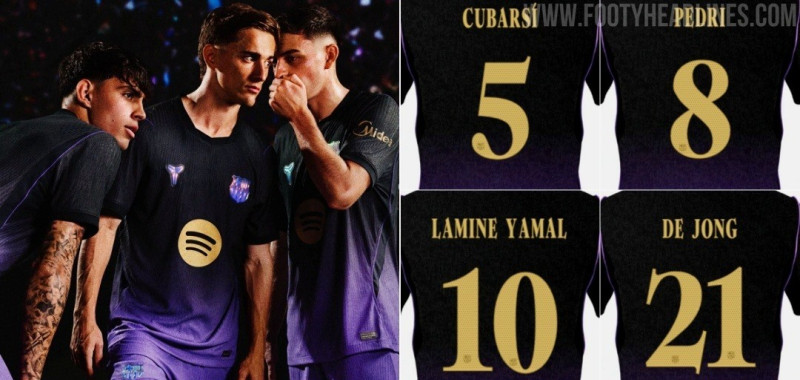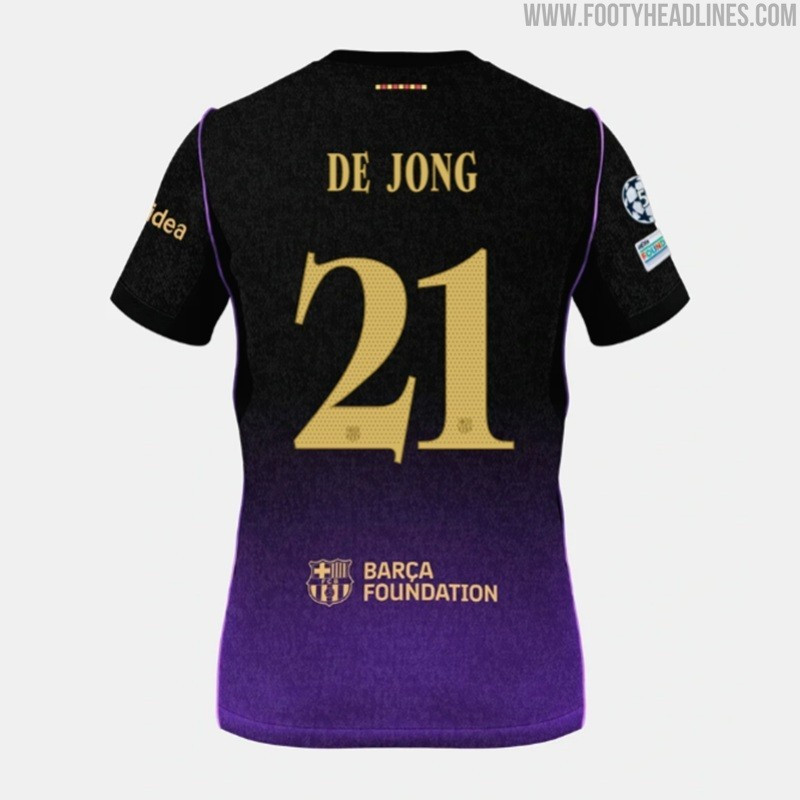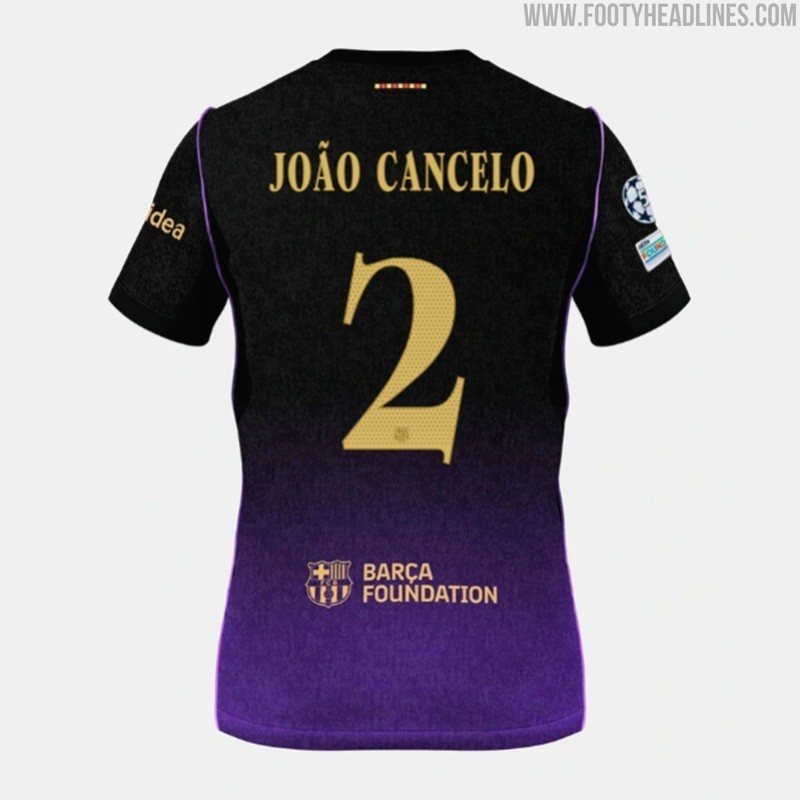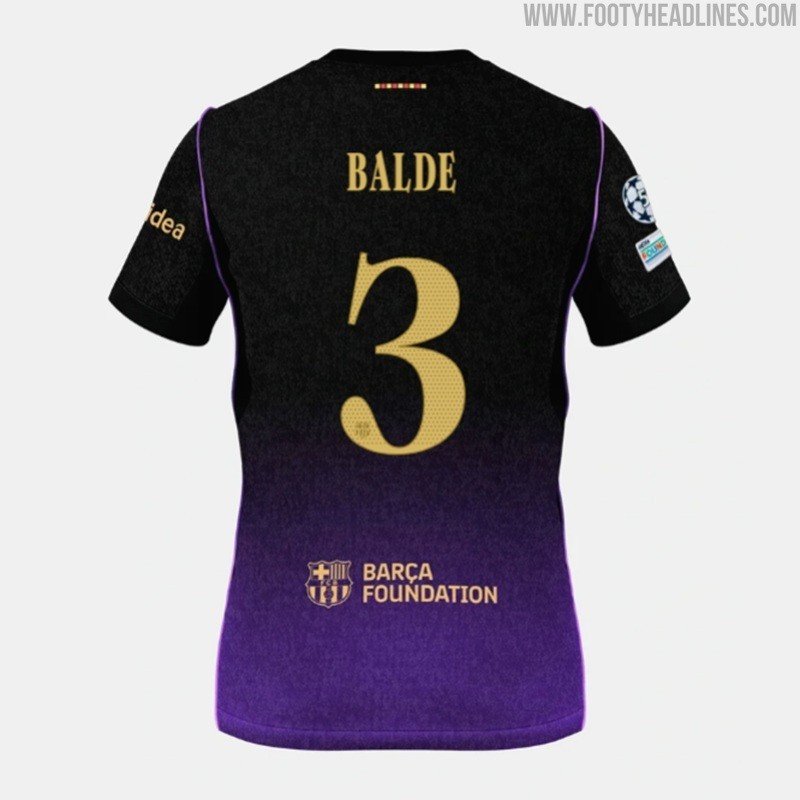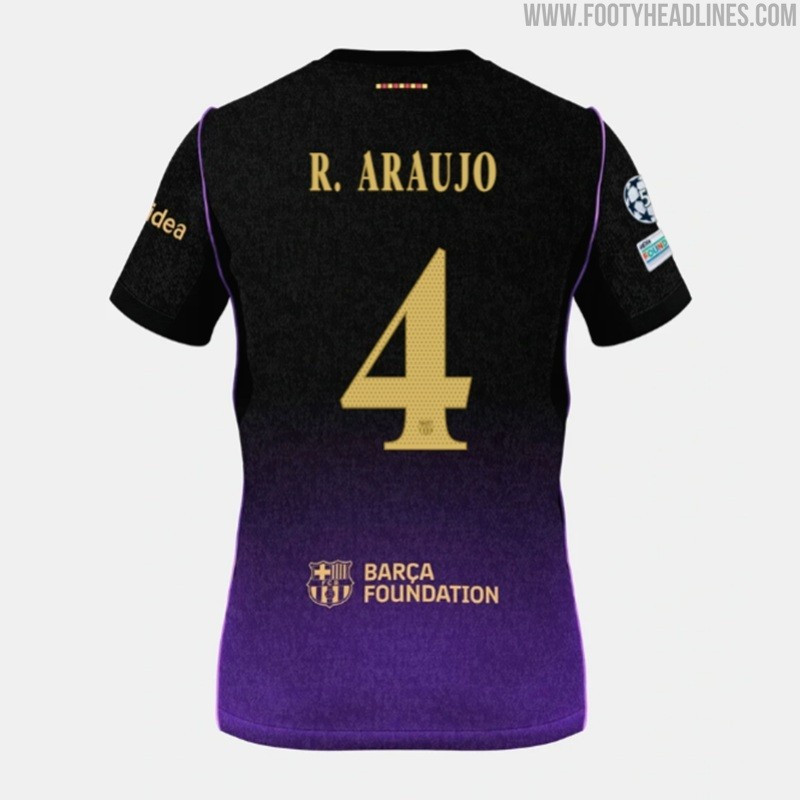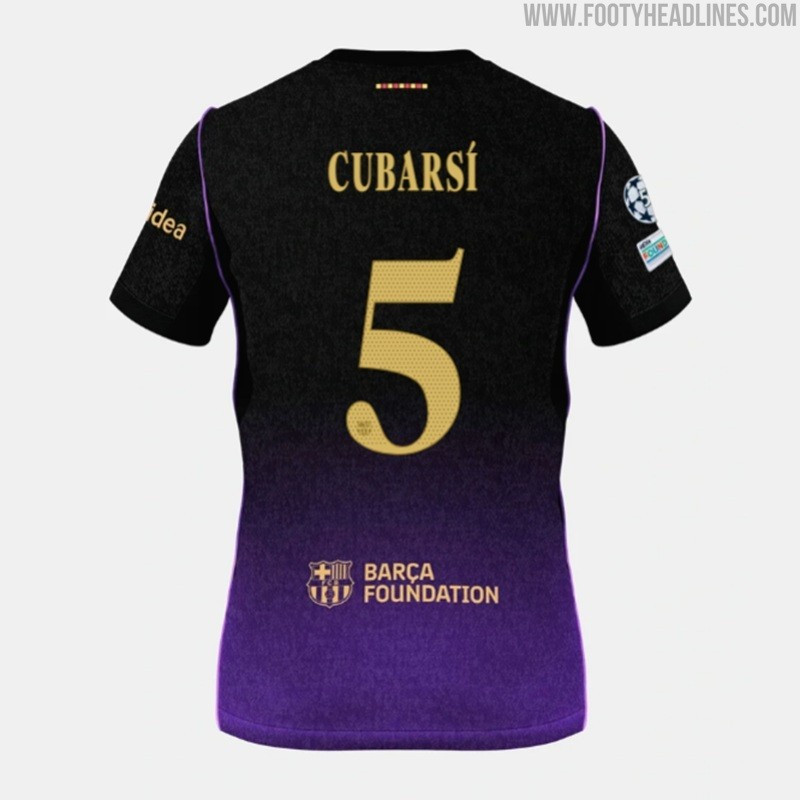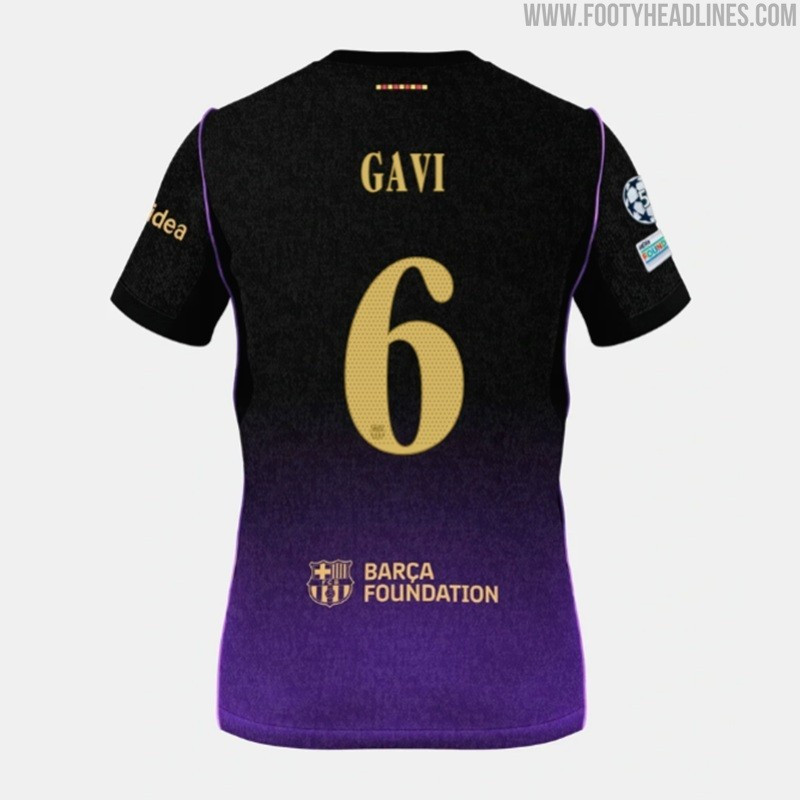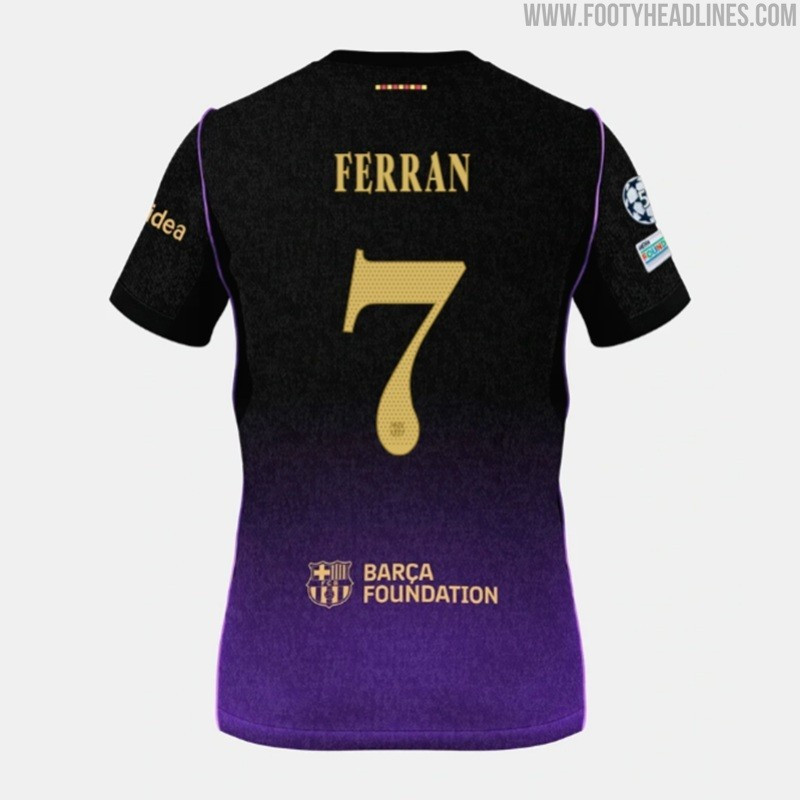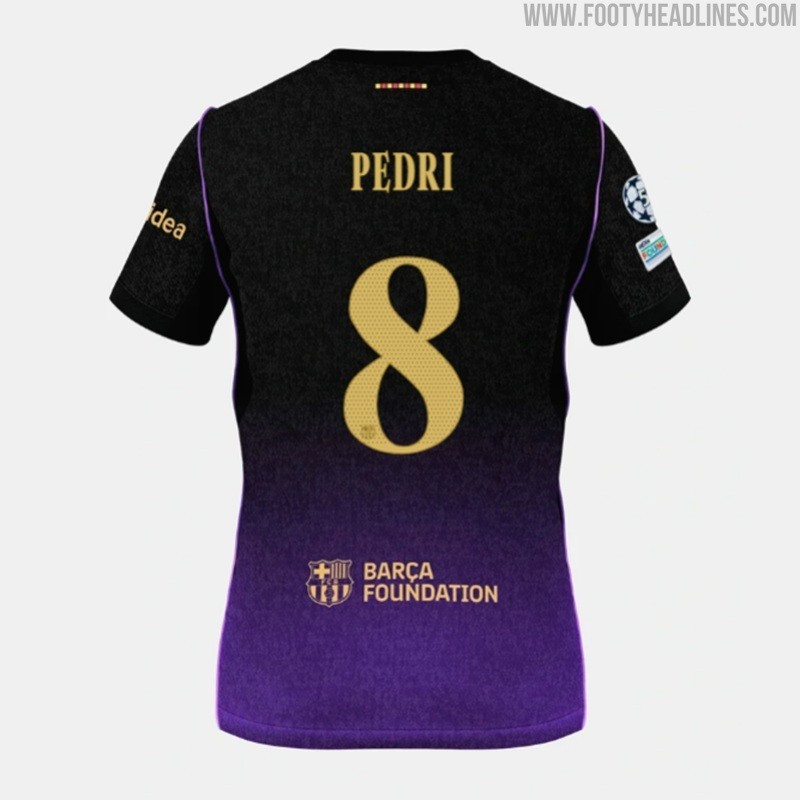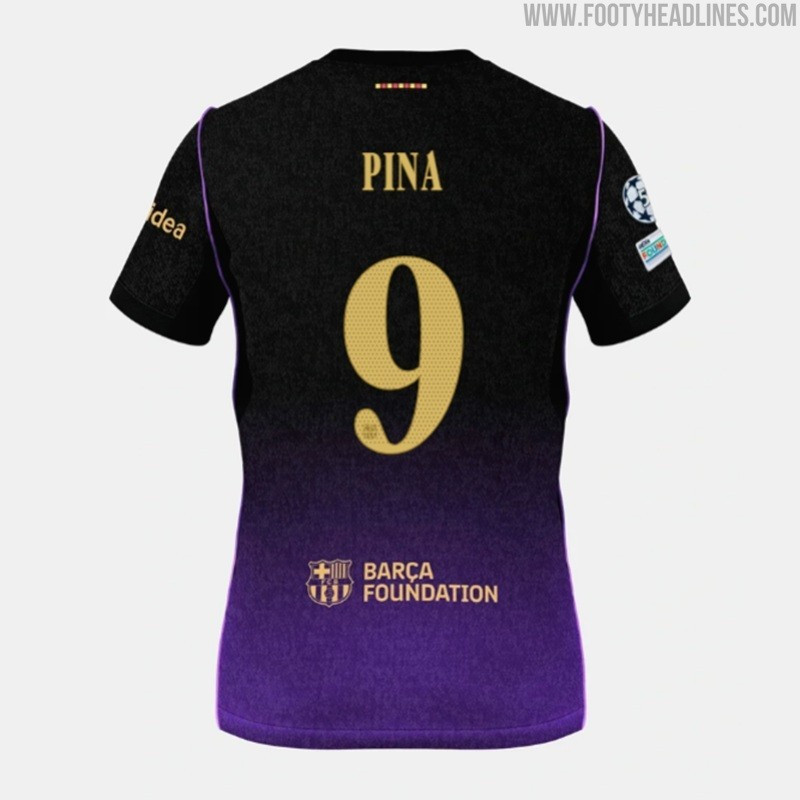
All-New FC Barcelona 26-27 Away 'Gold Mamba' Kit Font Released
- Bespoke & Exclusive Font: FC Barcelona has released an all-new bespoke kit font specifically designed for their 2026-2027 away kit, which is entirely separate and exclusive to this strip, unlike previous seasons.
- Design & Aesthetics: The new away kit font features a rich, metallic gold color, providing high contrast against the dark jersey, and boasts a classy, luxurious appearance with elegant serif lettering and refined flourishes.
Along with the official launch of their new away jersey, FC Barcelona has unveiled an all-new bespoke kit font specifically designed for the 2026-2027 away kit. Unlike previous seasons, this new typeface is exclusive to the away strip, entirely separate from the typography used on the home shirt.
FC Barcelona 26-27 Away Kit Font
Check out the all-new FC Barcelona 2026-2027 away kit font below.
The new FC Barcelona 26-27 away kit font comes in a rich, metallic gold color. This vibrant gold shade provides high contrast against the dark black-and-purple base of the jersey, complementing the gold sleeve trims, sponsor logos, and club crest on the front.
The new Barcelona 26-27 away typeface carries a classy, luxurious, and sophisticated appearance. The typography features elegant serif lettering with refined flourishes on both the letters and numbers, giving player names a premium, high-fashion look.